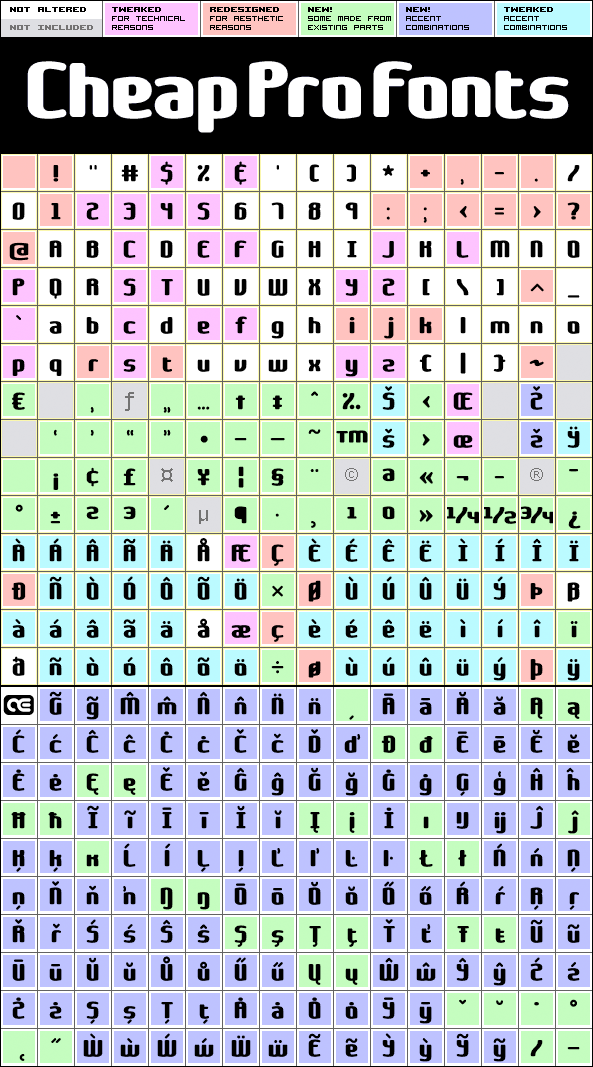
Galapogos BRK Pro
Galapogos BRK Pro by Brian Kent
Designer:
Brian Kent
Highlights:
372 glyphs!
(163 in original)
230 class kernpairs
= 13112 kerning pairs
(4351 in original)
Description:
A very chunky and rounded font. I have shortened the r and t, increased the size of the dots, and tweaked a little here and there - before expanding the character set substantially. I actually like the font so much that I also used it for the CheapProFonts logo!
Galapogos BRK Pro is a professionally reworked font that contains an extended character set for setting text in 65 languages requiring more than the basic A-Z!